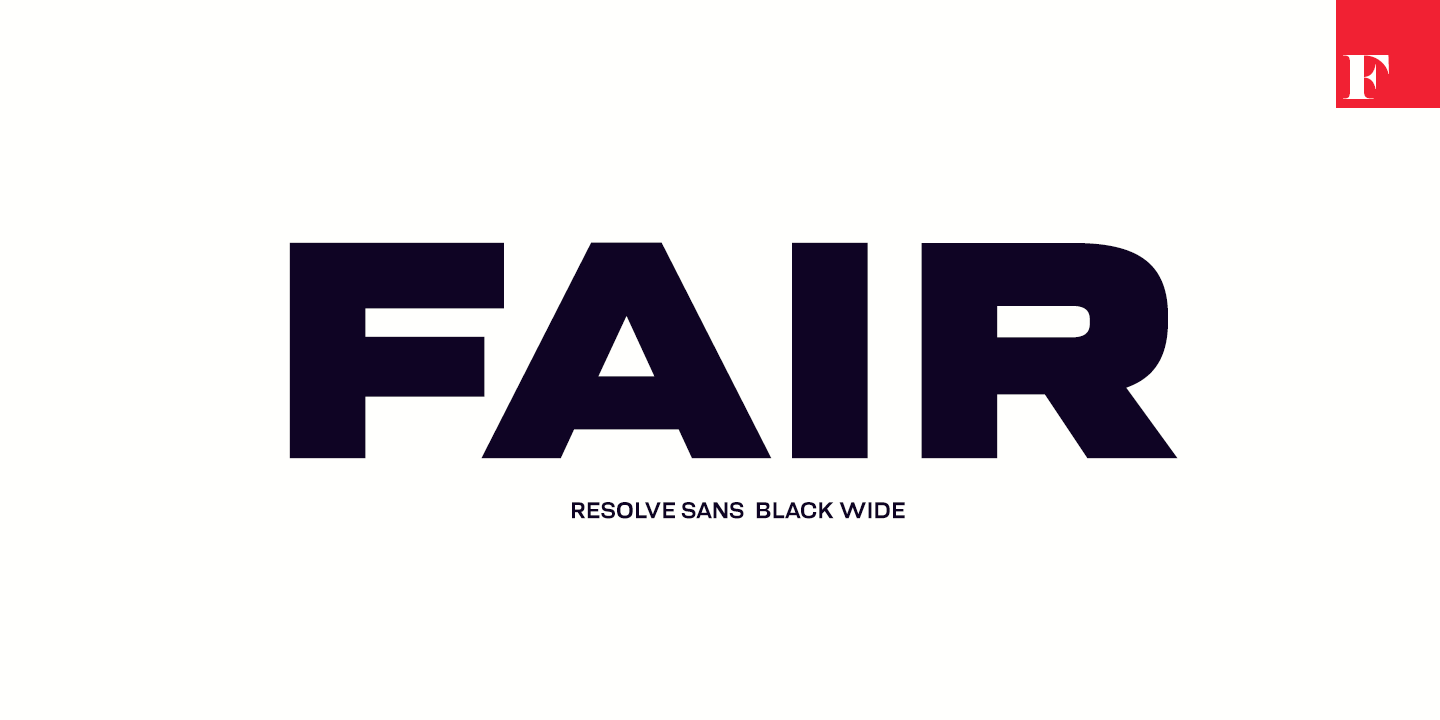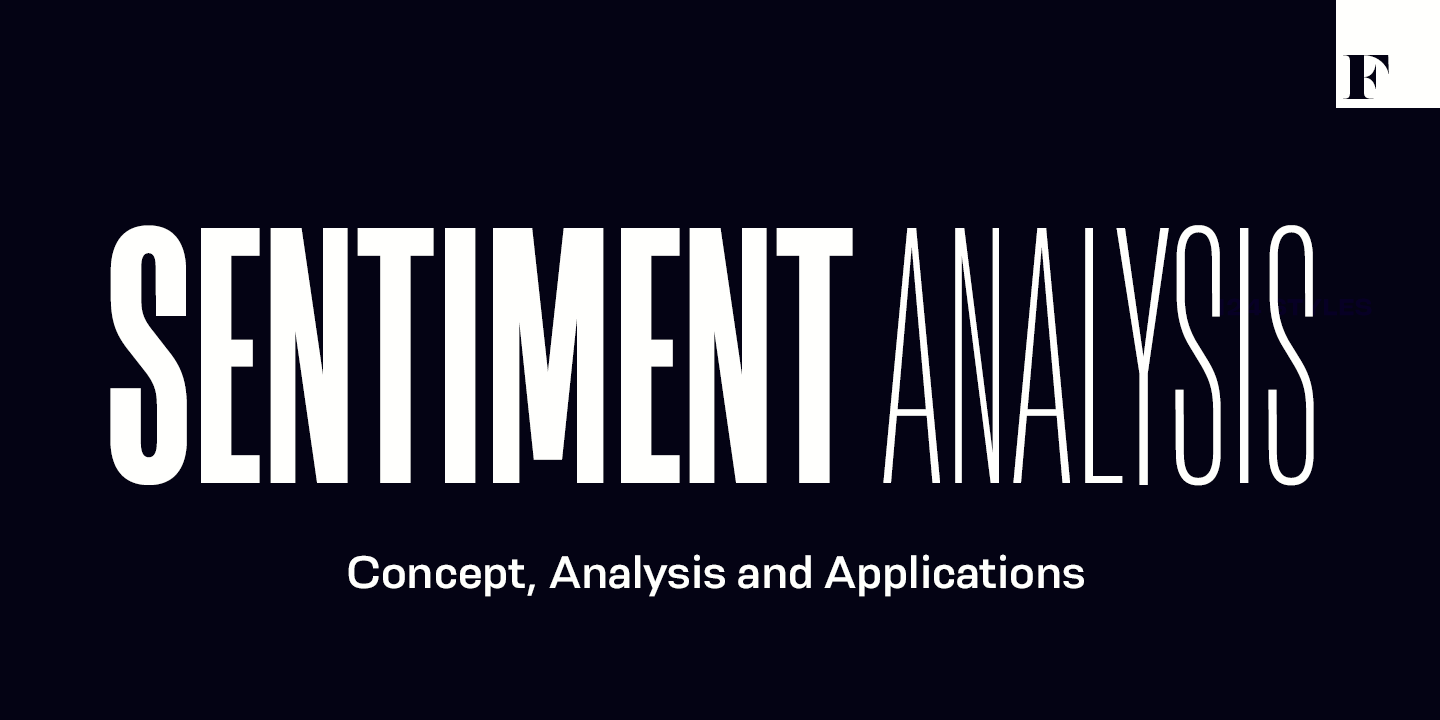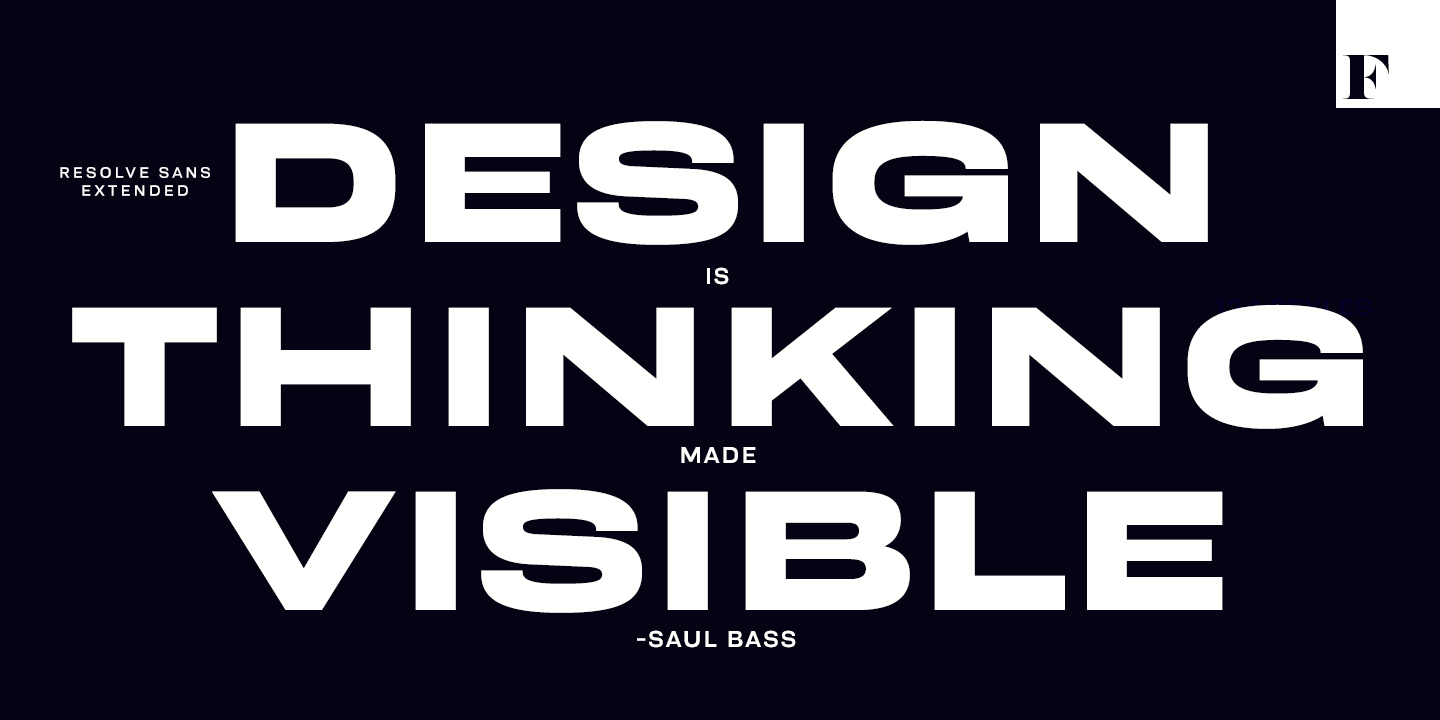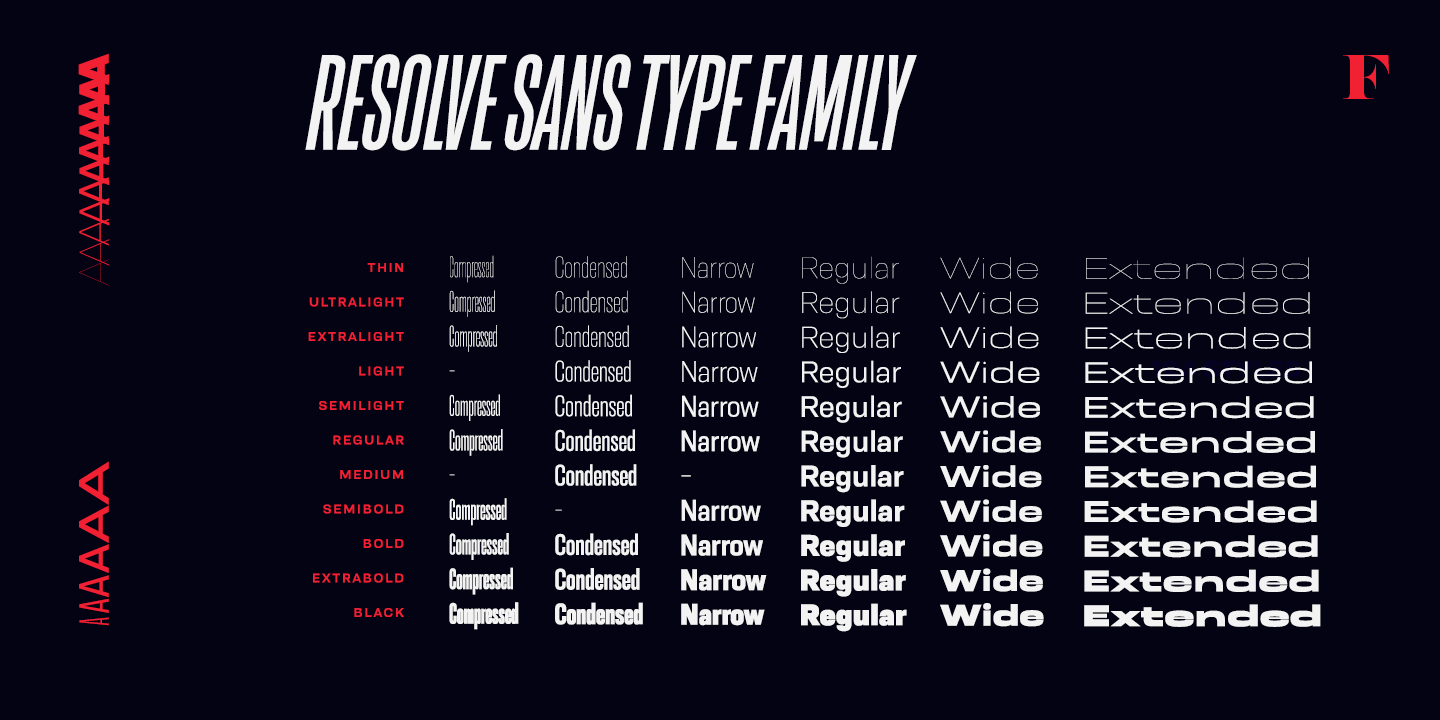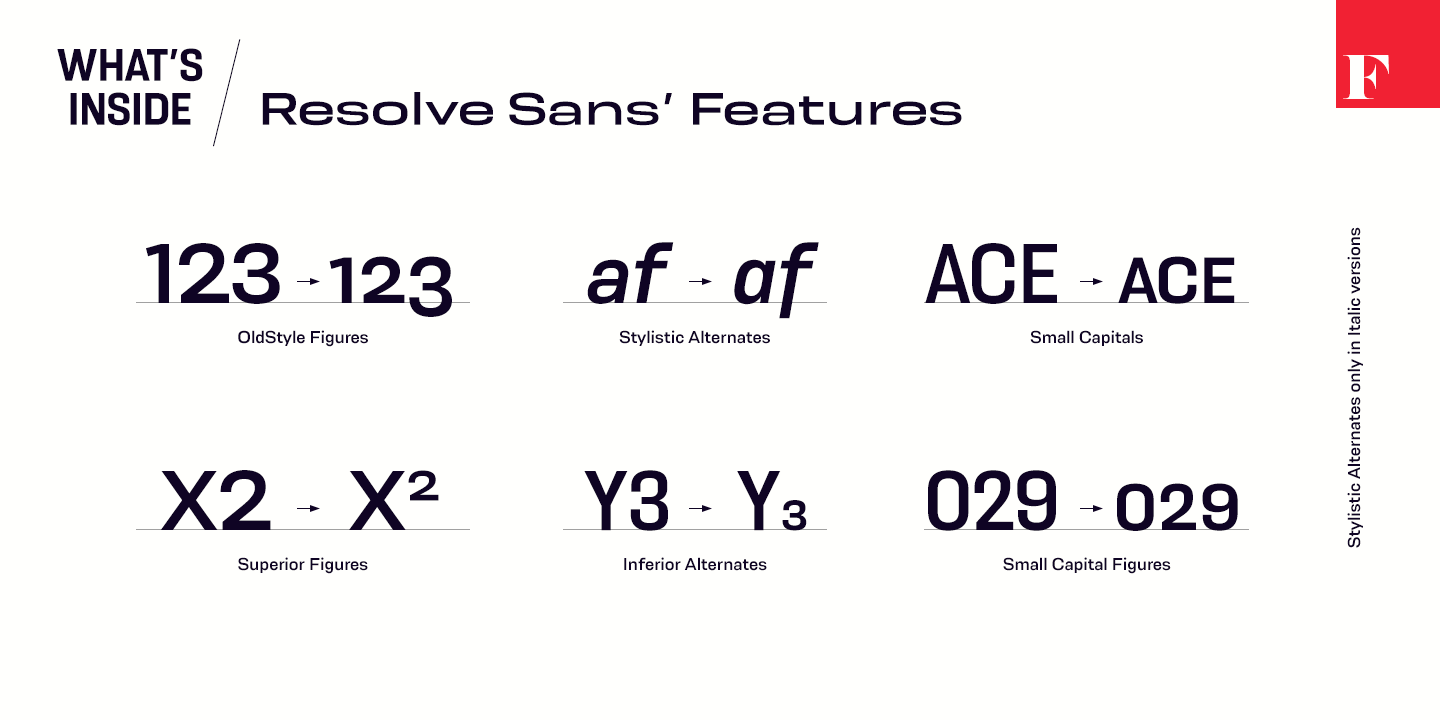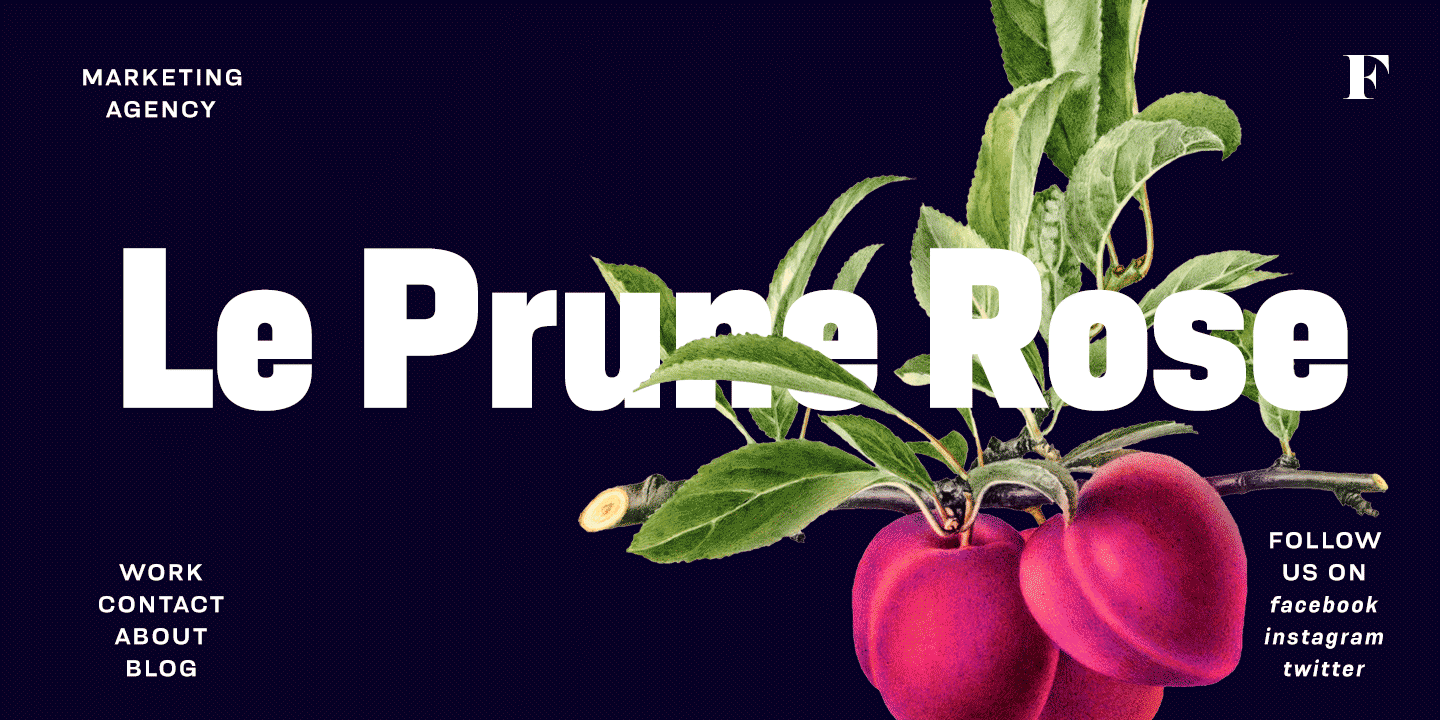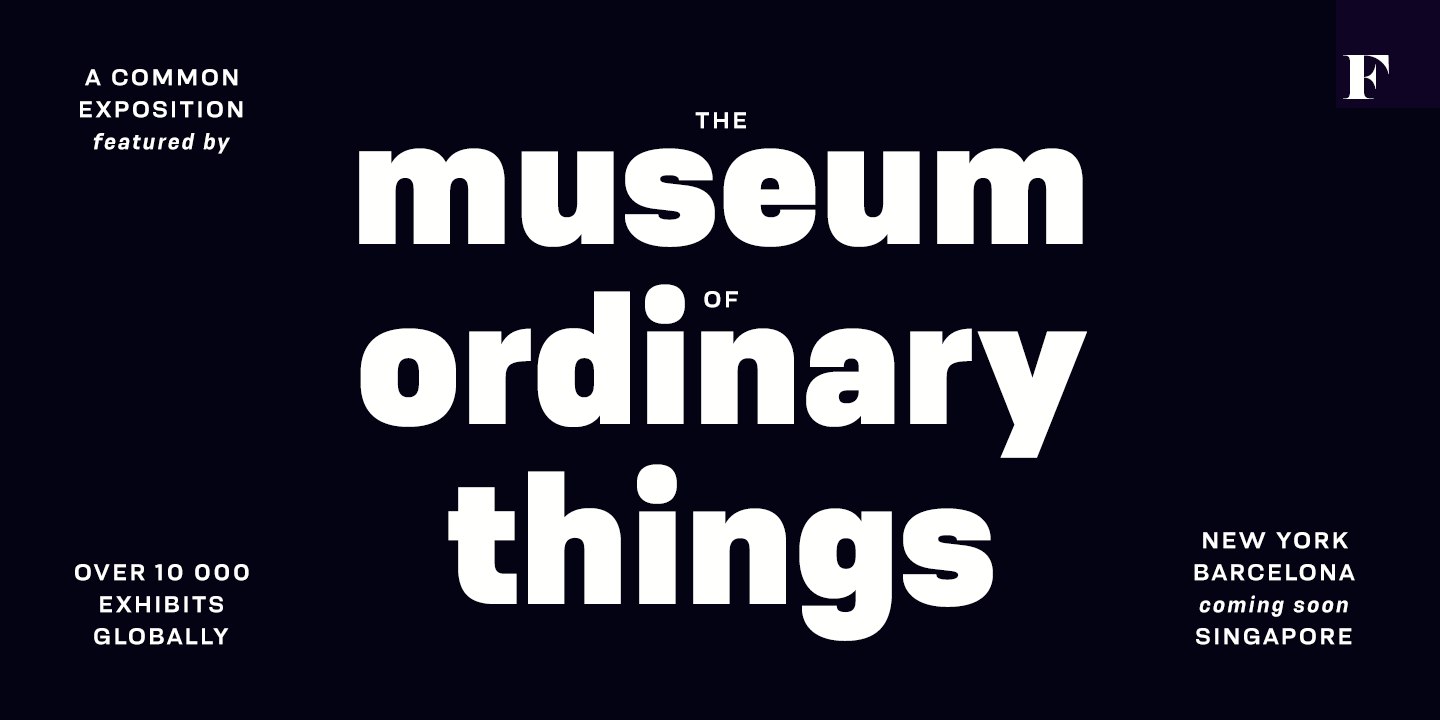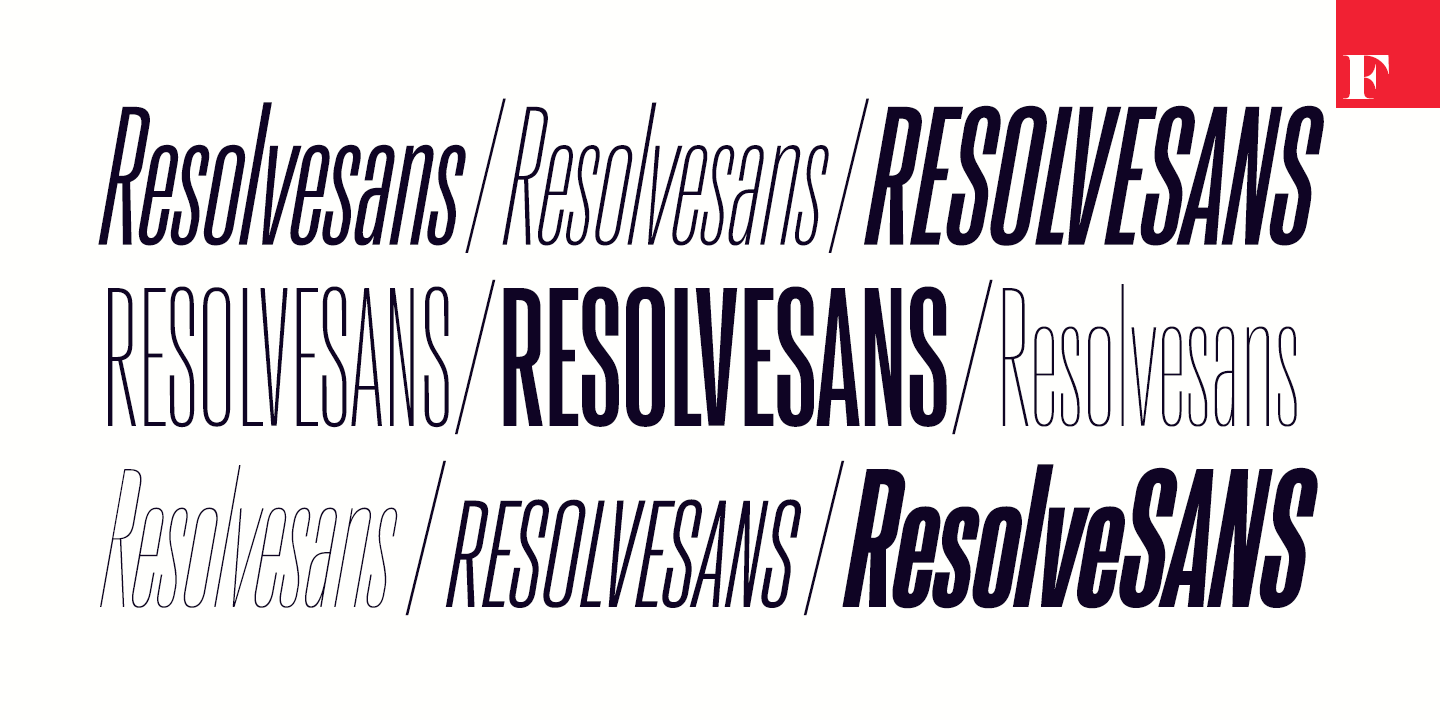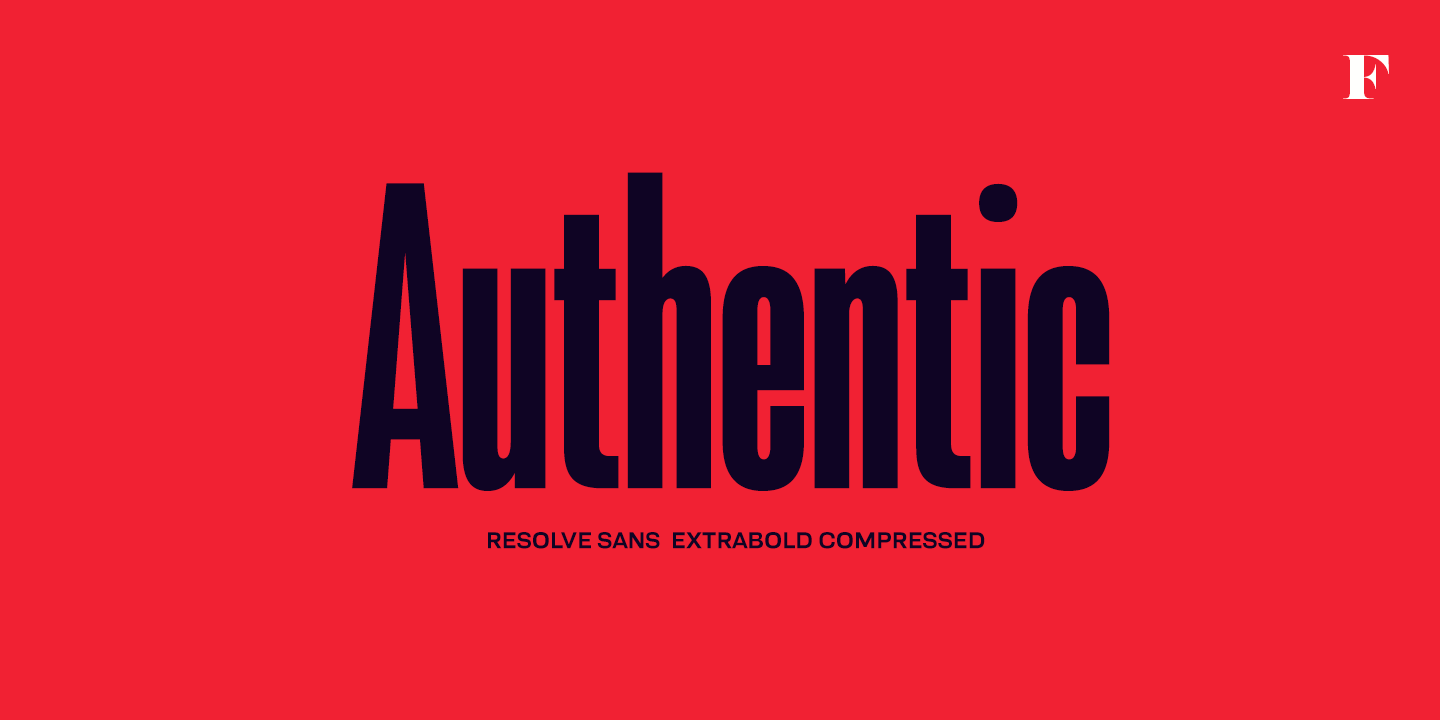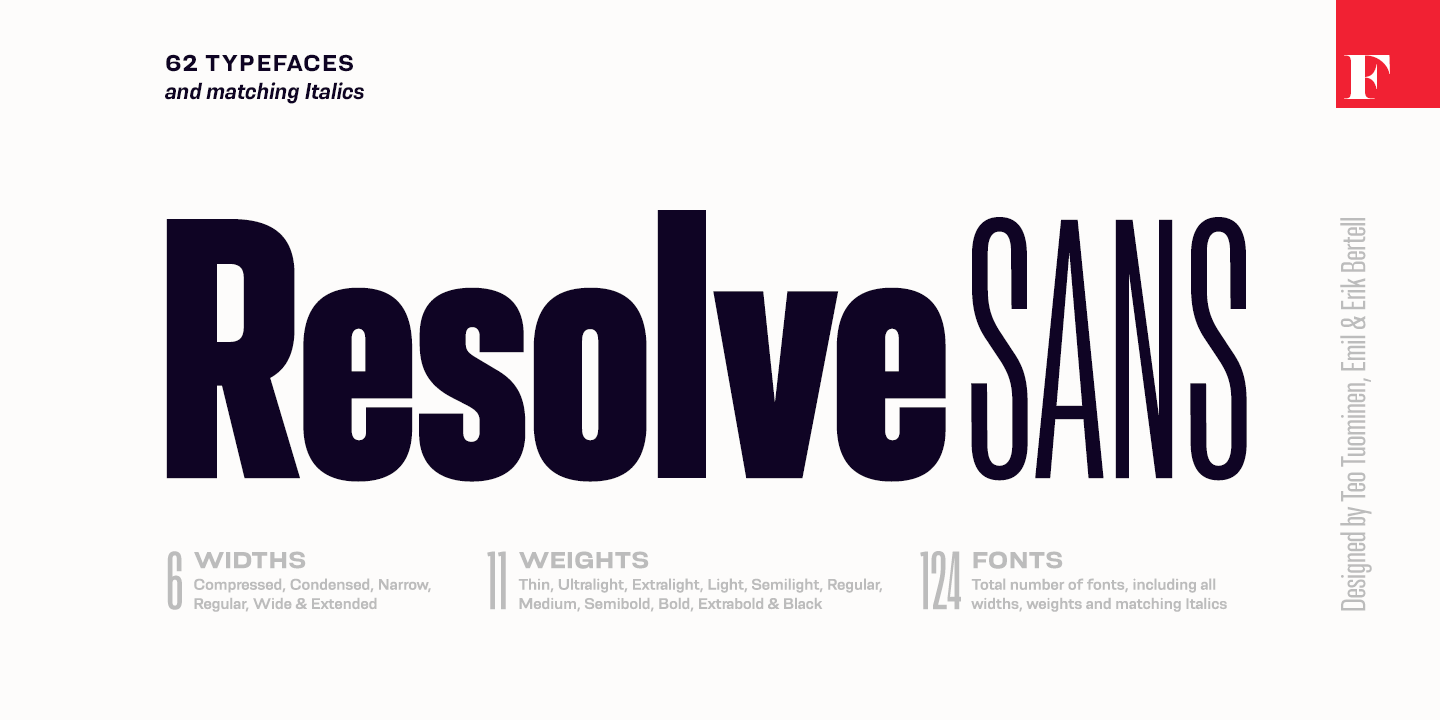
Resolve Sans
About Resolve Sans
One font family to cover it all. Resolve Sans is an extensive super family of 124 fonts: from compressed to extended, thin to black. Resolve Sans perfectly balances a universally neutral appeal with a distinct level of sophistication. Effortless to adapt…